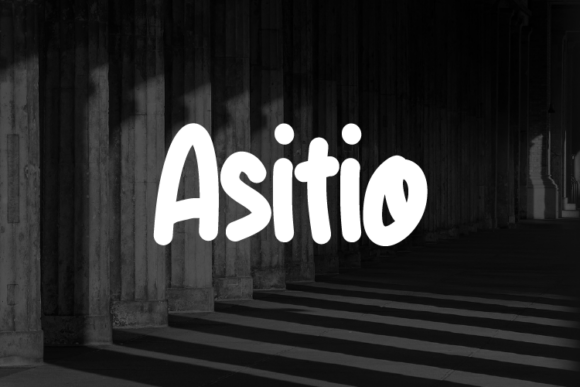
What is Asitio Font?
Asitio is a modern and elegant typeface designed for flexibility and excellent readability across a wide range of media. Featuring the .otf (OpenType Font) file format, it offers superior cross-platform compatibility, making it an ideal choice for all design software and office applications, including Adobe Creative Suite, Microsoft Office, and other design software.
- ✨ Excellent Readability: Asitio Font is clear and easy to read, even at small sizes.
- ✅ Flexibility: It works beautifully across various media, from digital screens to print.
- 🎨 OpenType Features: Offers a range of glyphs, stylistic alternates, and swashes to elevate your designs.
While Asitio Font is an excellent choice, there are a few minor considerations:
- 🤔 Limited Language Support: Asitio Font may not support all languages, so be sure to check the character set before use.
- ⚠️ Occasional Kerning Issues: Some users have reported minor kerning issues in specific software or platforms.
The Designer Behind Asitio Font
Asitio Font was designed with the modern designer in mind. While the actual designer remains anonymous, their inspiration likely came from a desire to create a versatile, elegant typeface that could be used across various media. The result is a font that exudes sophistication and poise.
| Author | Eric Kusuma |
| Is Asitio Font suitable for body text? | Yes, Asitio Font is designed for excellent readability, making it suitable for body text. |